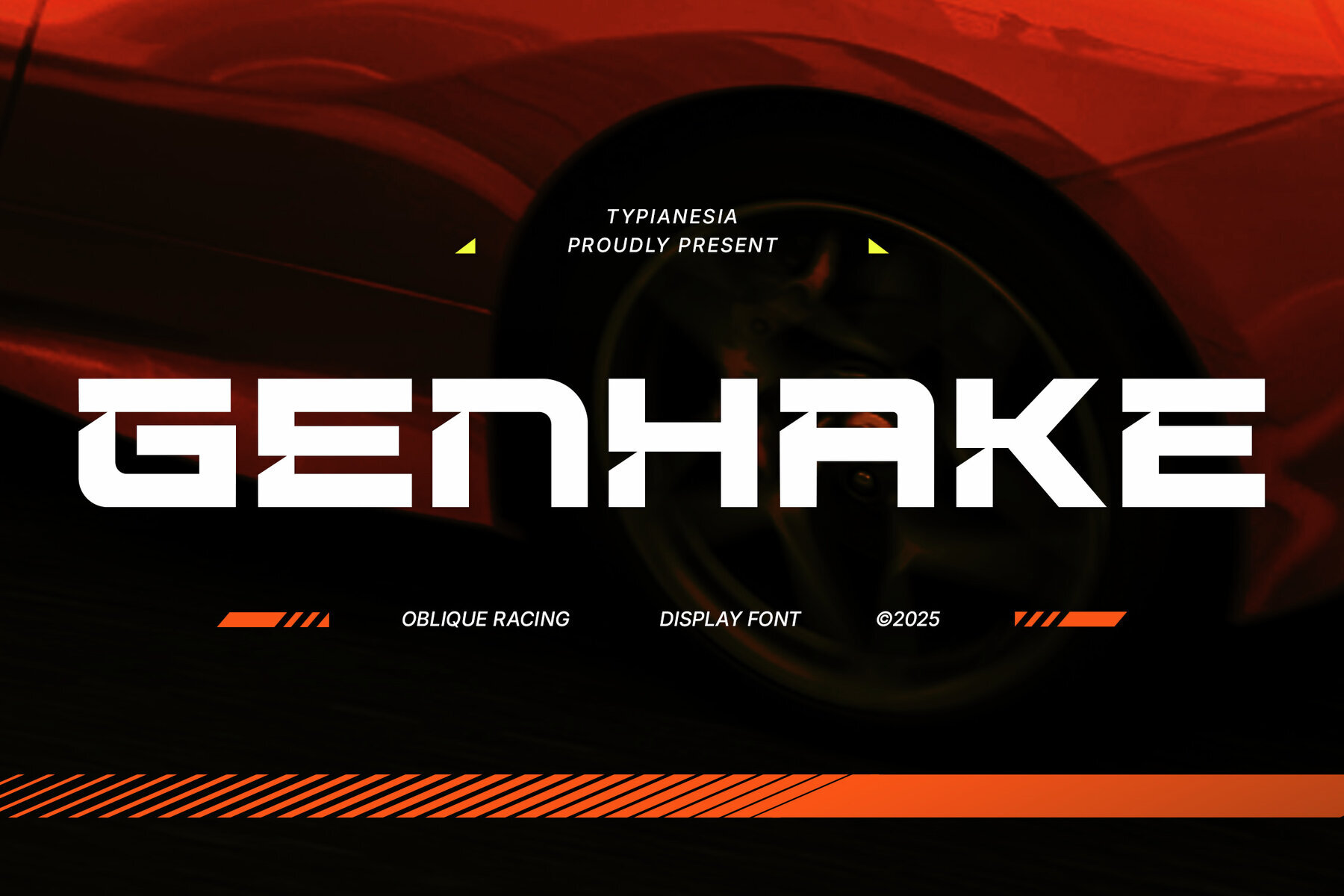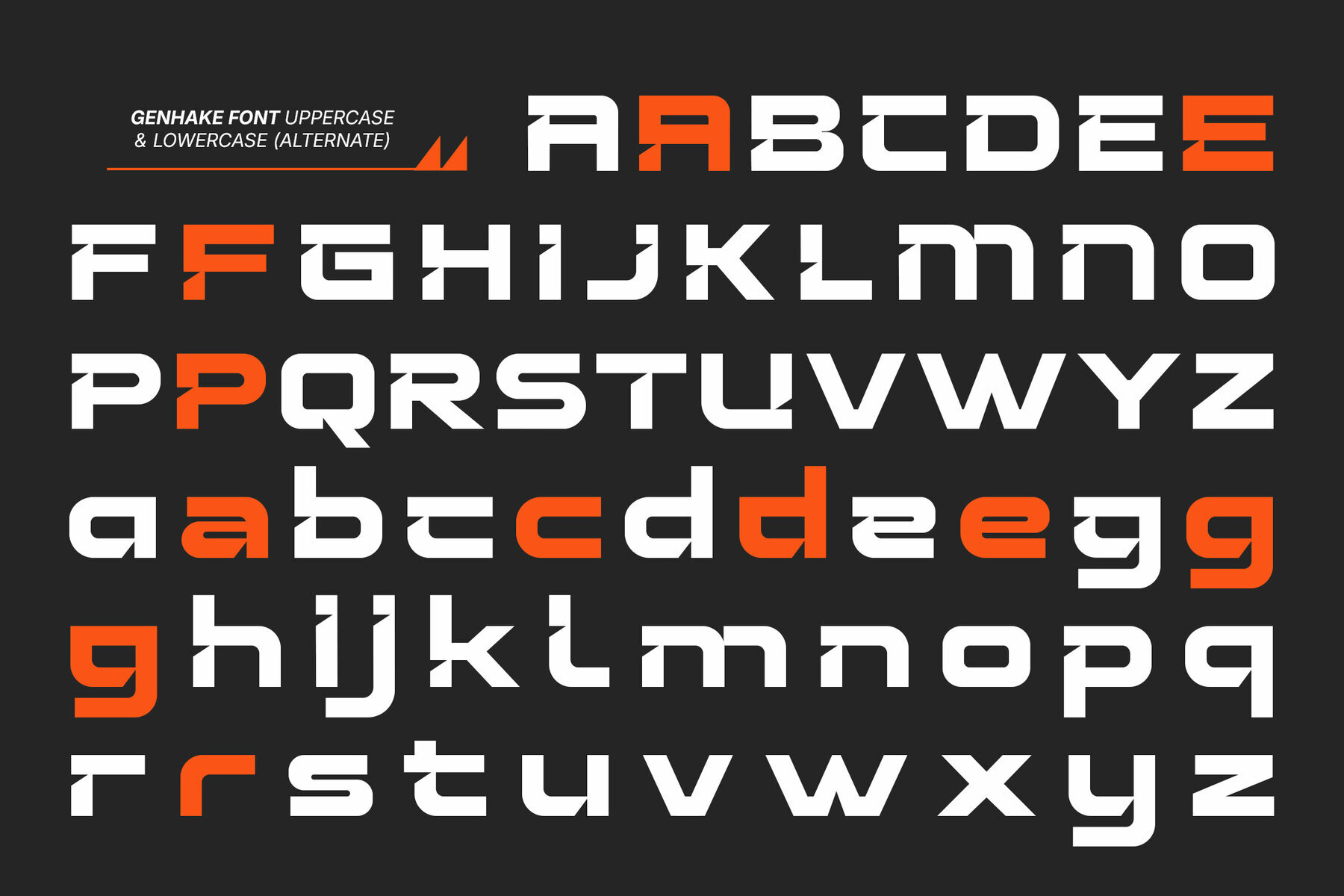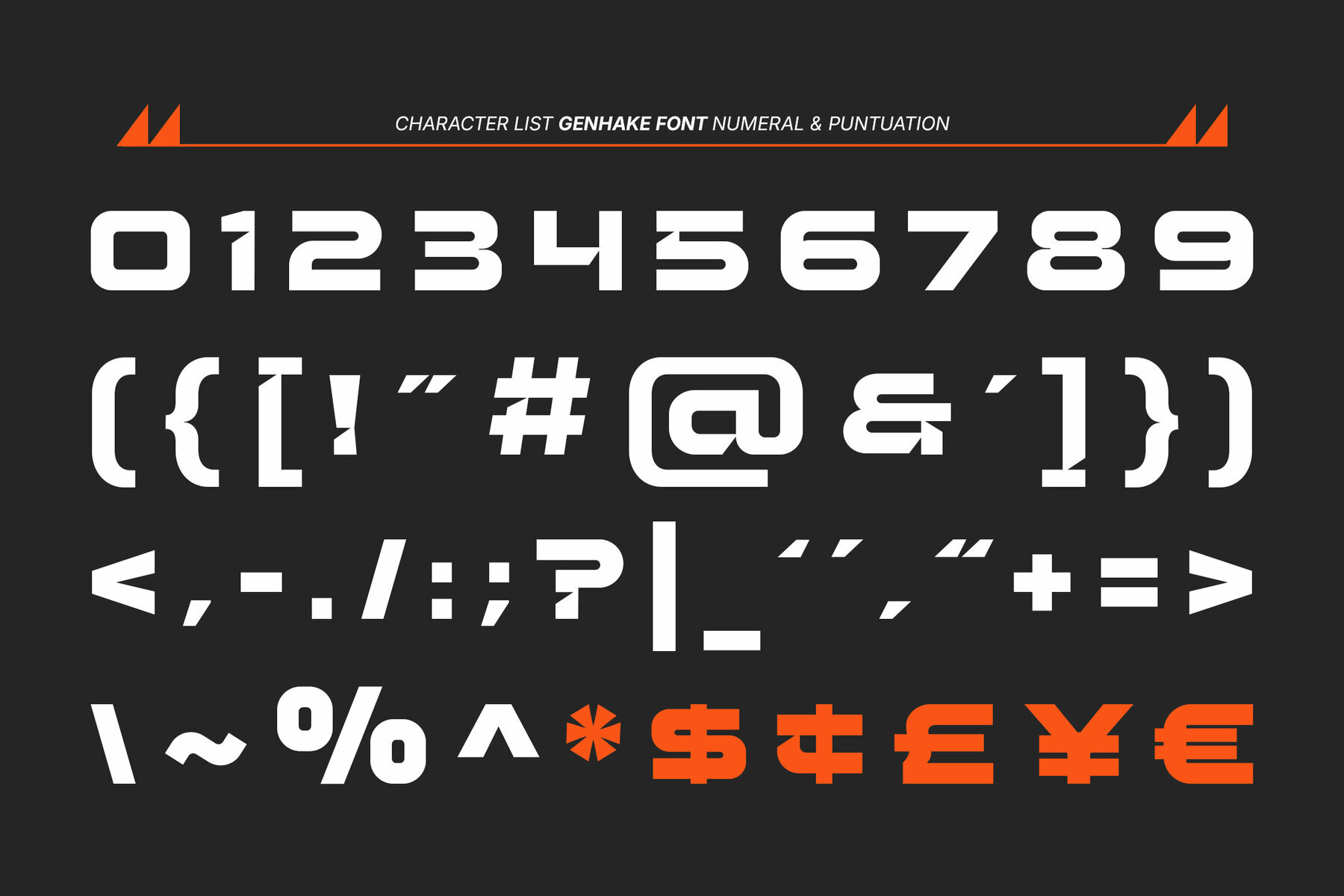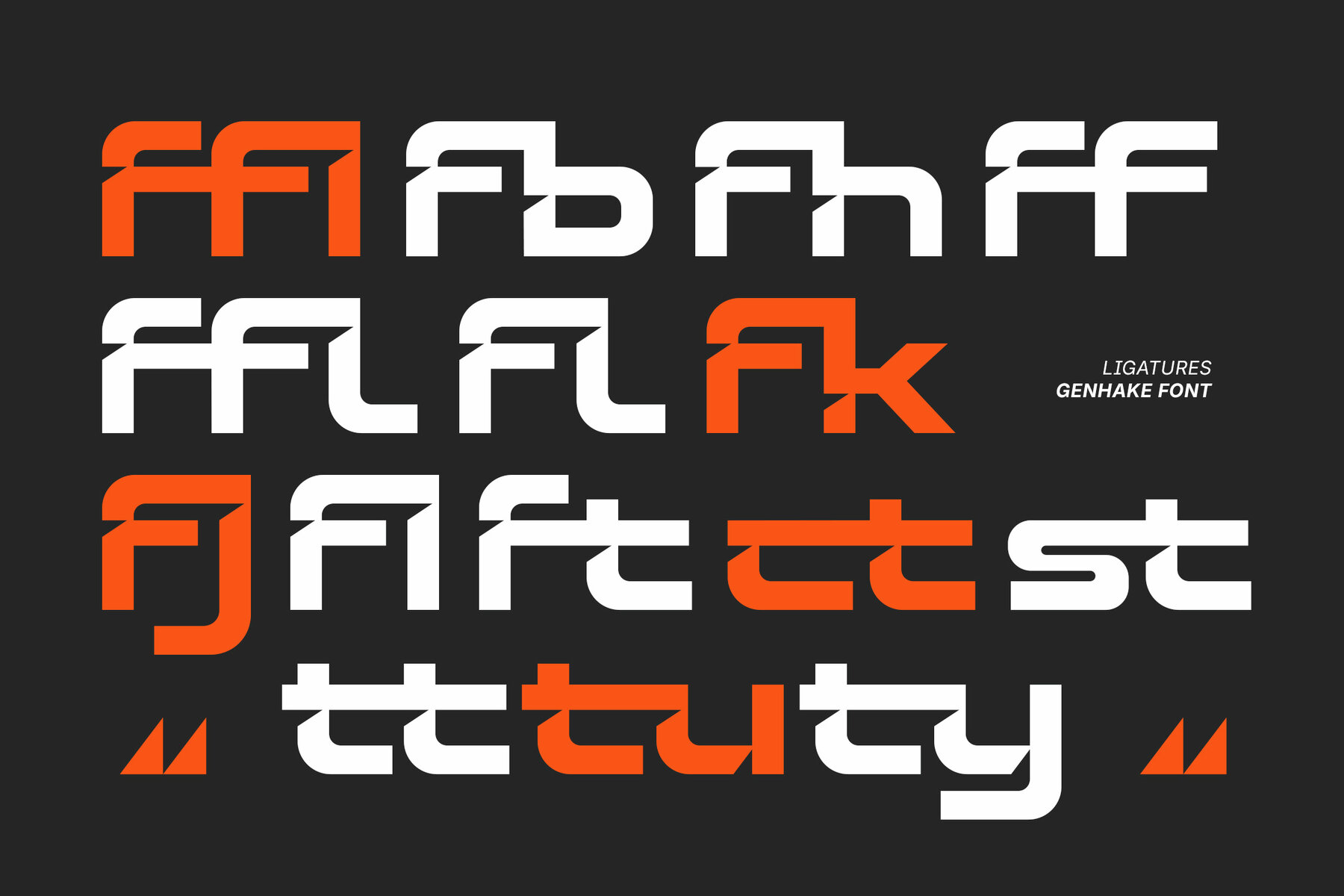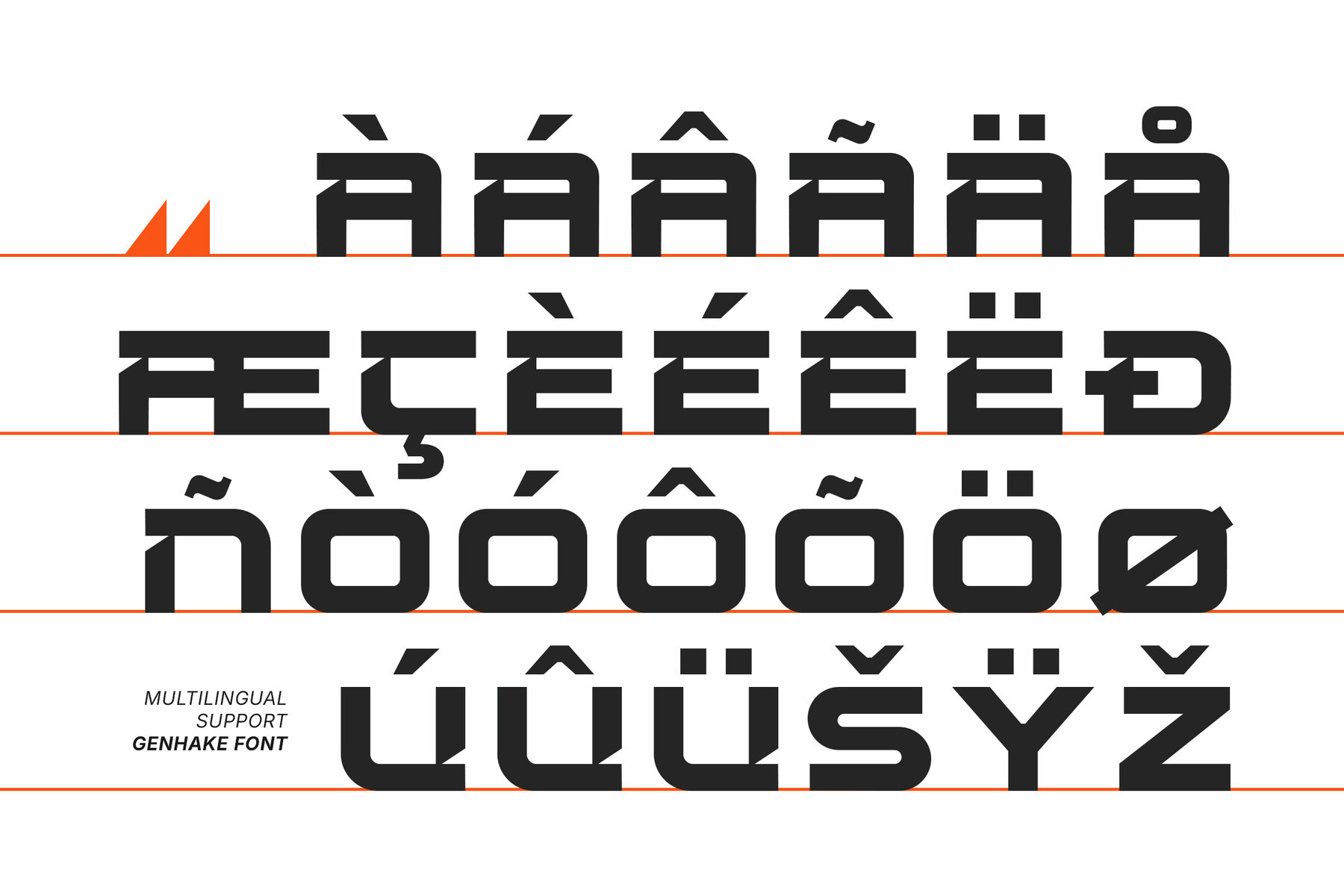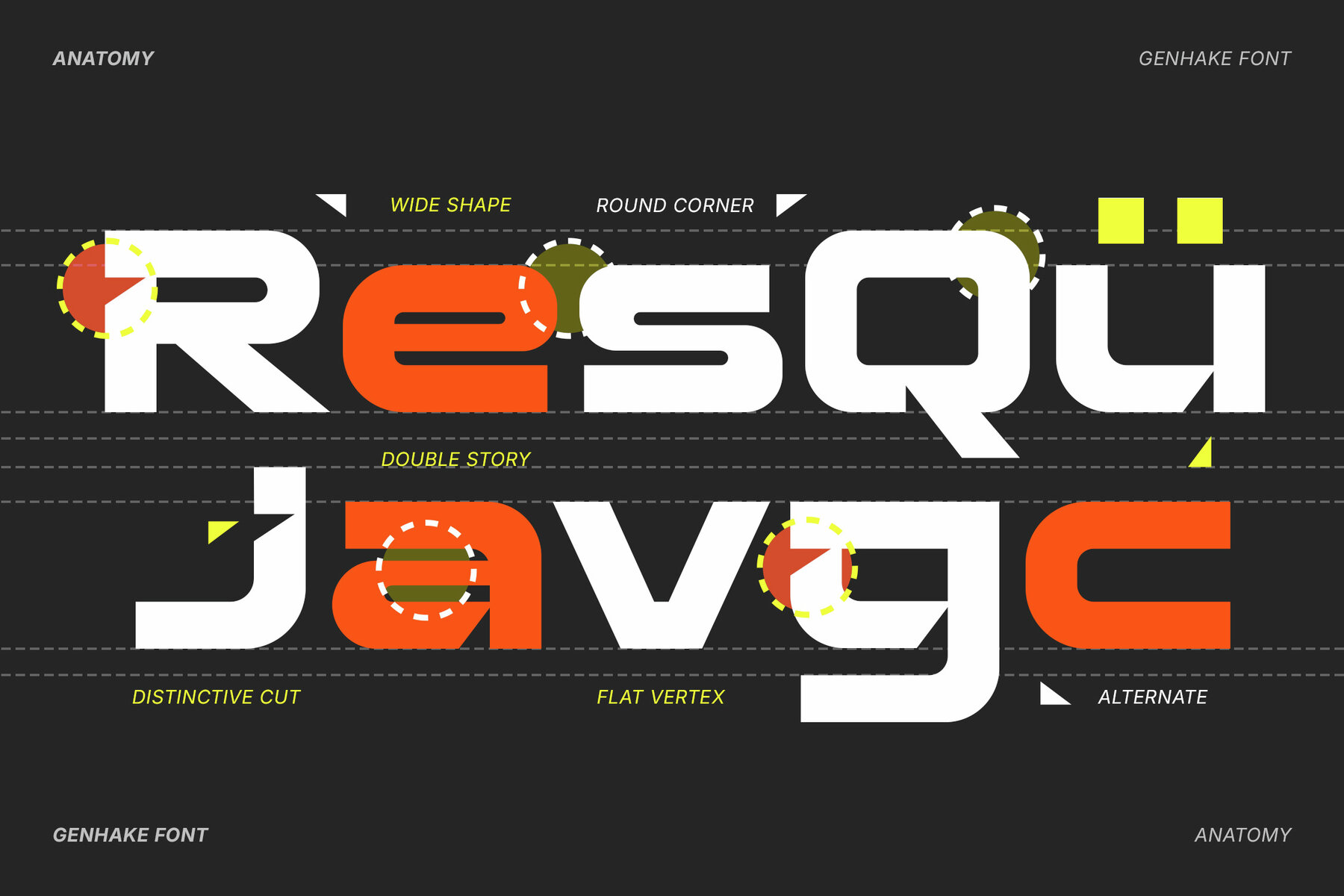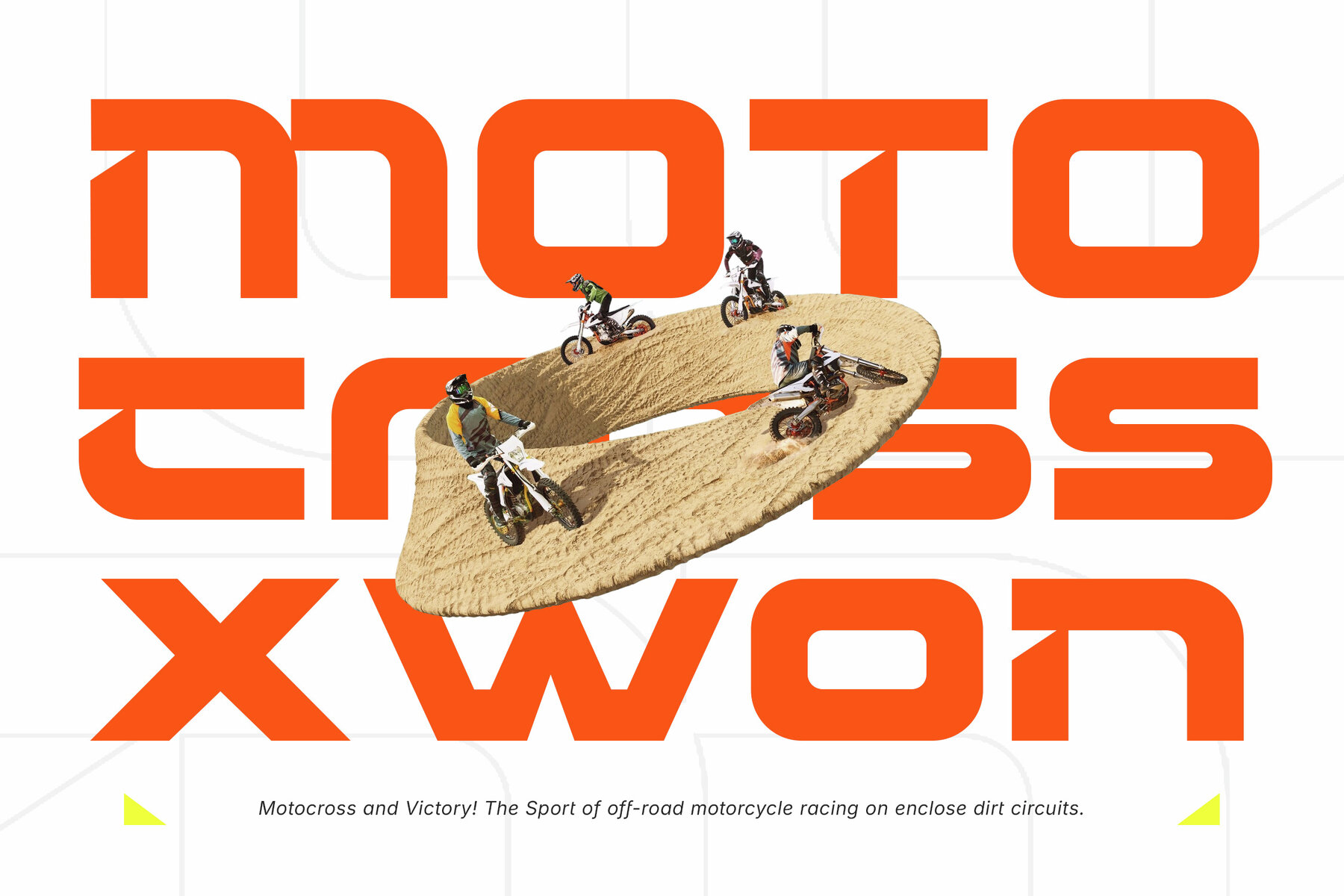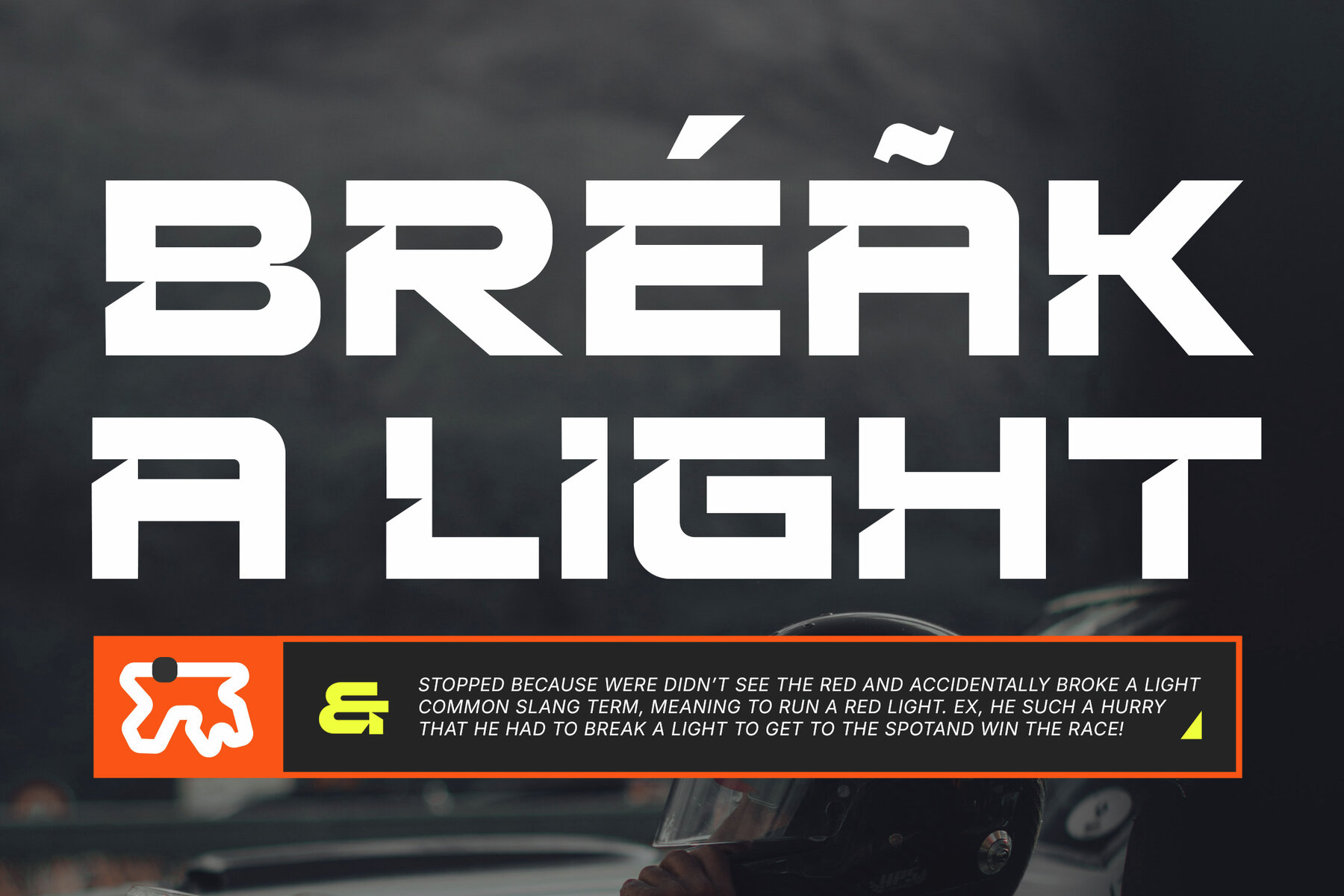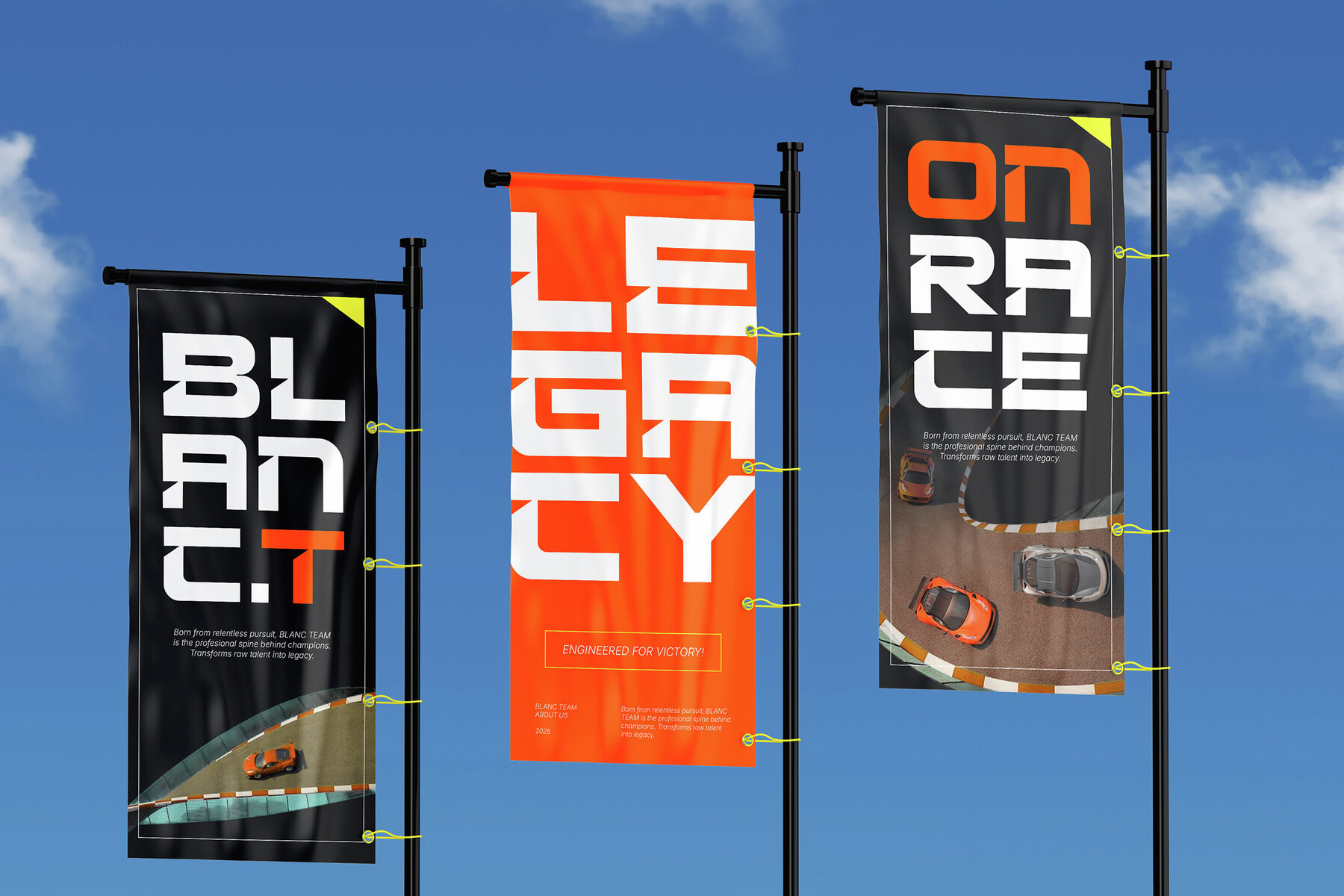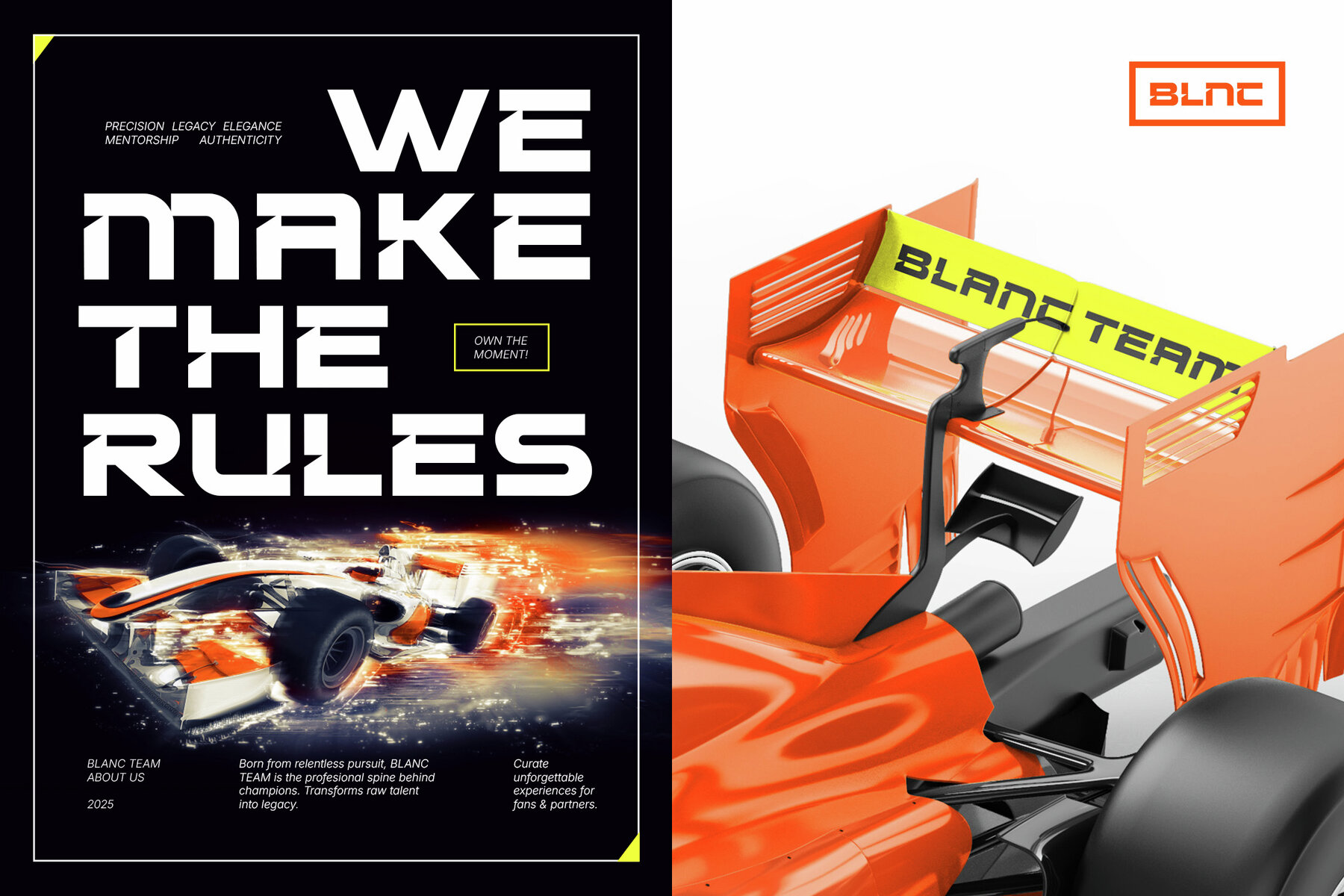
Genhake Font
Genhake Regular
Genhake captures the essence of speed, technology, and high-powered racing in a modern display typeface. Its bold, expanded character and slightly oblique stance create a sense of movement and energy, making it ideal for sport and automotive branding, dynamic poster design, urban tech projects, and impactful logos for sci-fi films or games. Genhake stands out wherever you need a fast, unforgettable impression. Its distinct style delivers clarity and impact, lending a sharp edge to any creative project seeking a modern, futuristic touch.Genhake – Modern Futuristic Sci-Fi Game Font